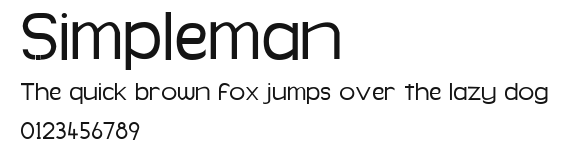
• Font Name: Simpleman
• Full Font Name: Simpleman
About Simpleman.ttf
Simpleman.ttf is a modern, elegant sans-serif font designed for ultimate readability and visual harmony. Perfect for branding, headlines, web design, and print materials.